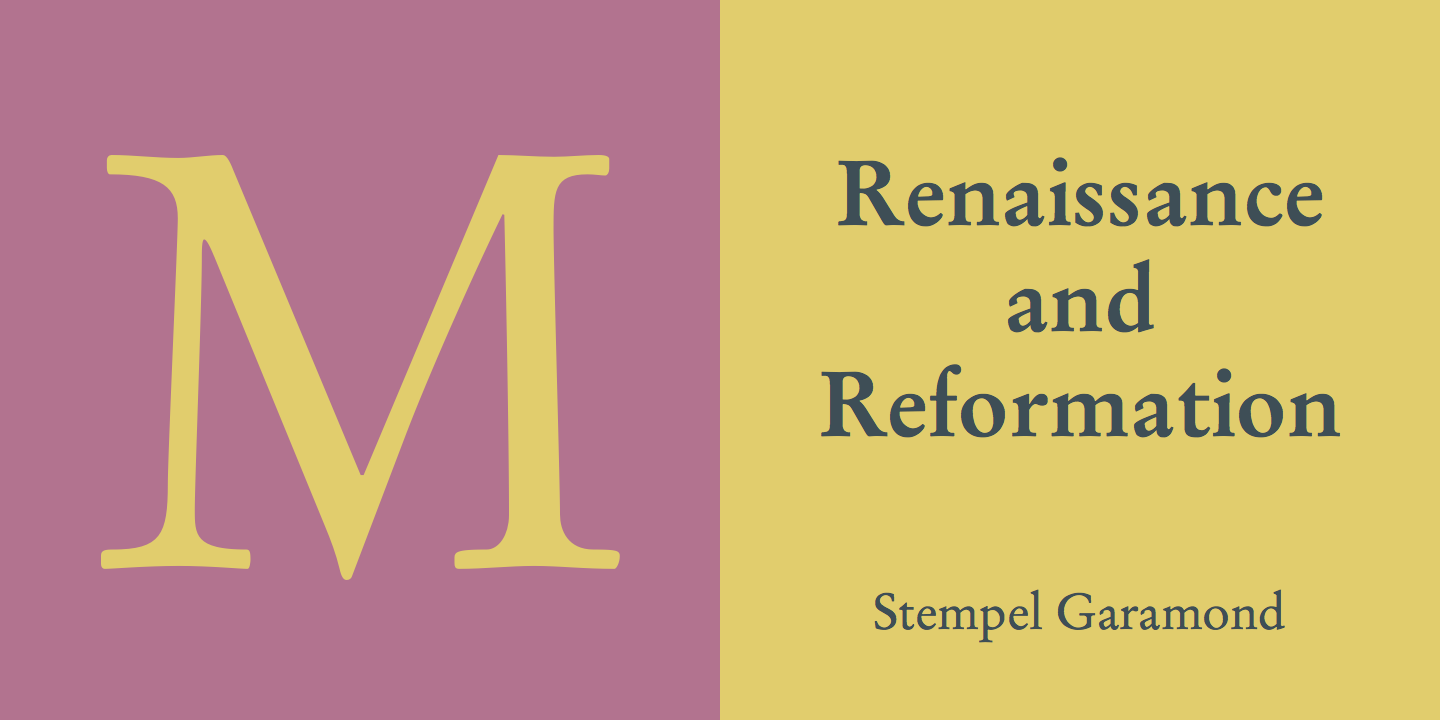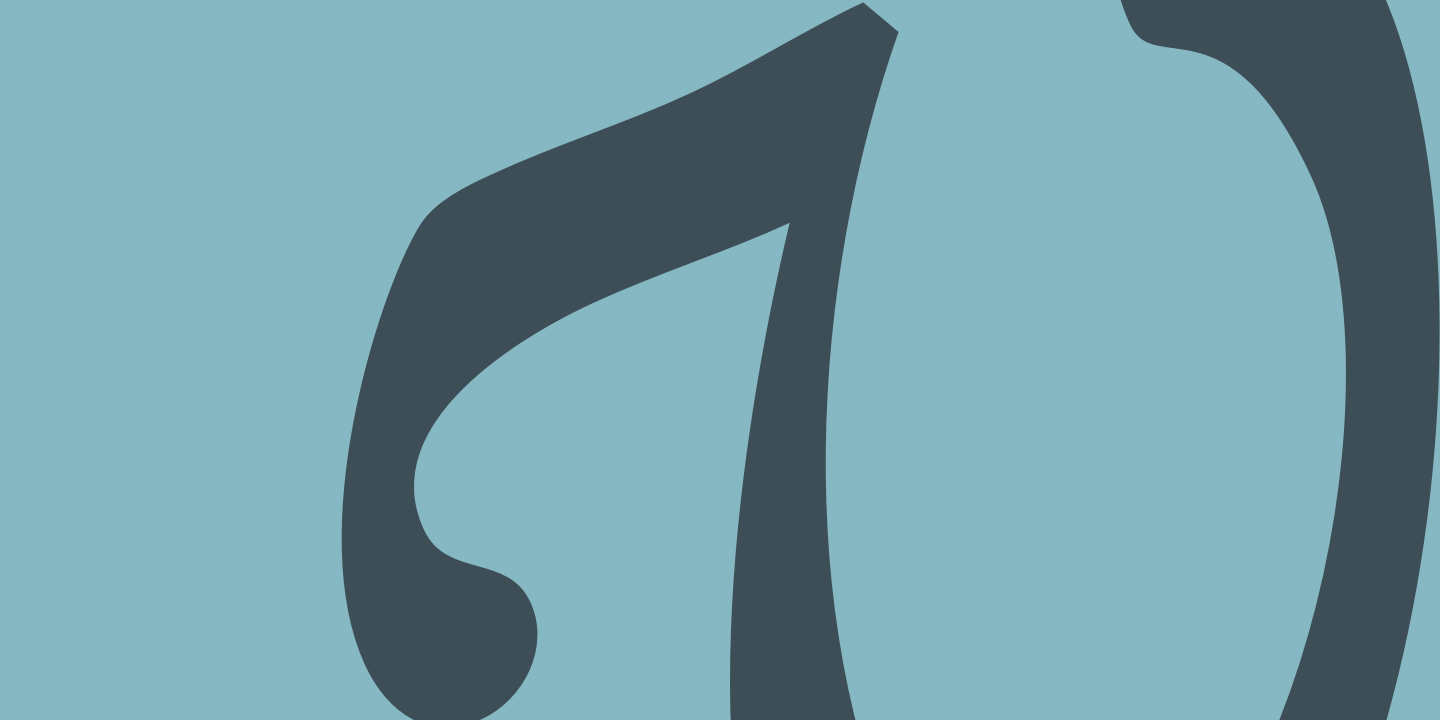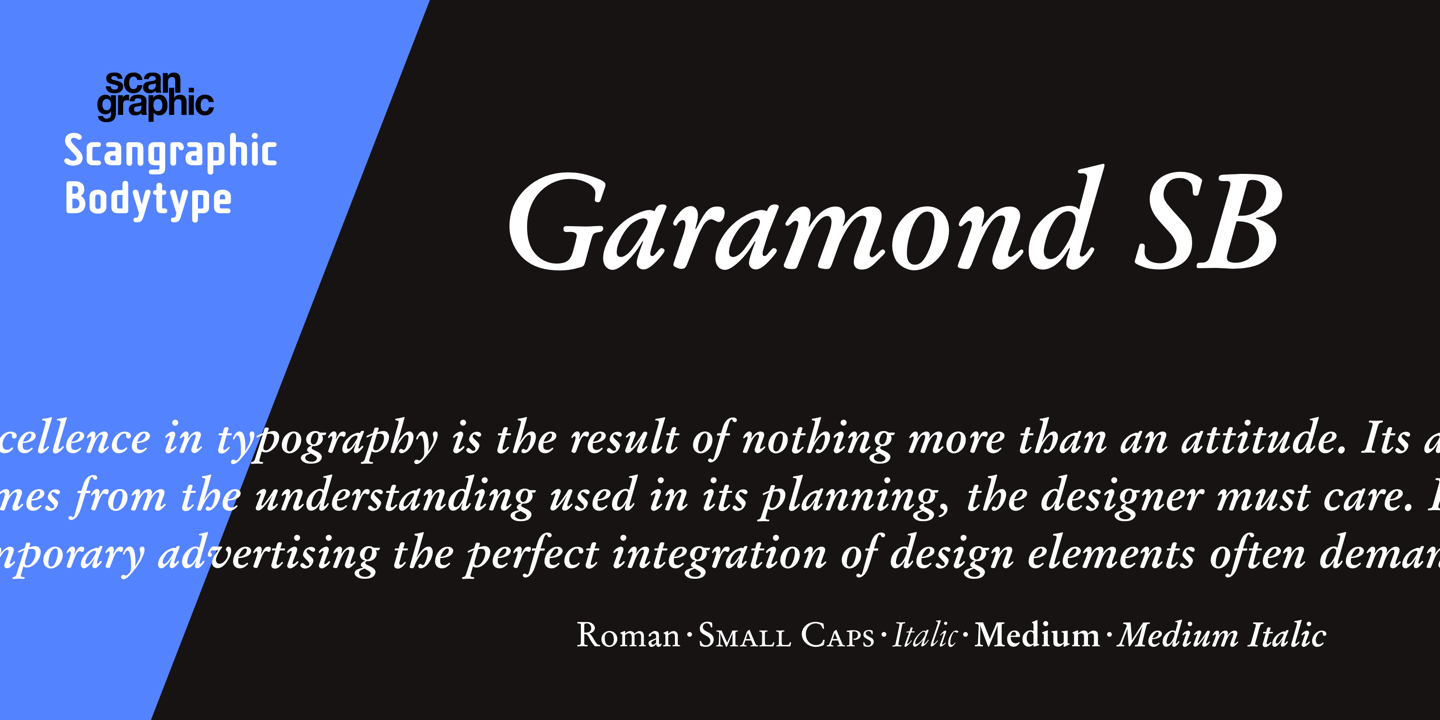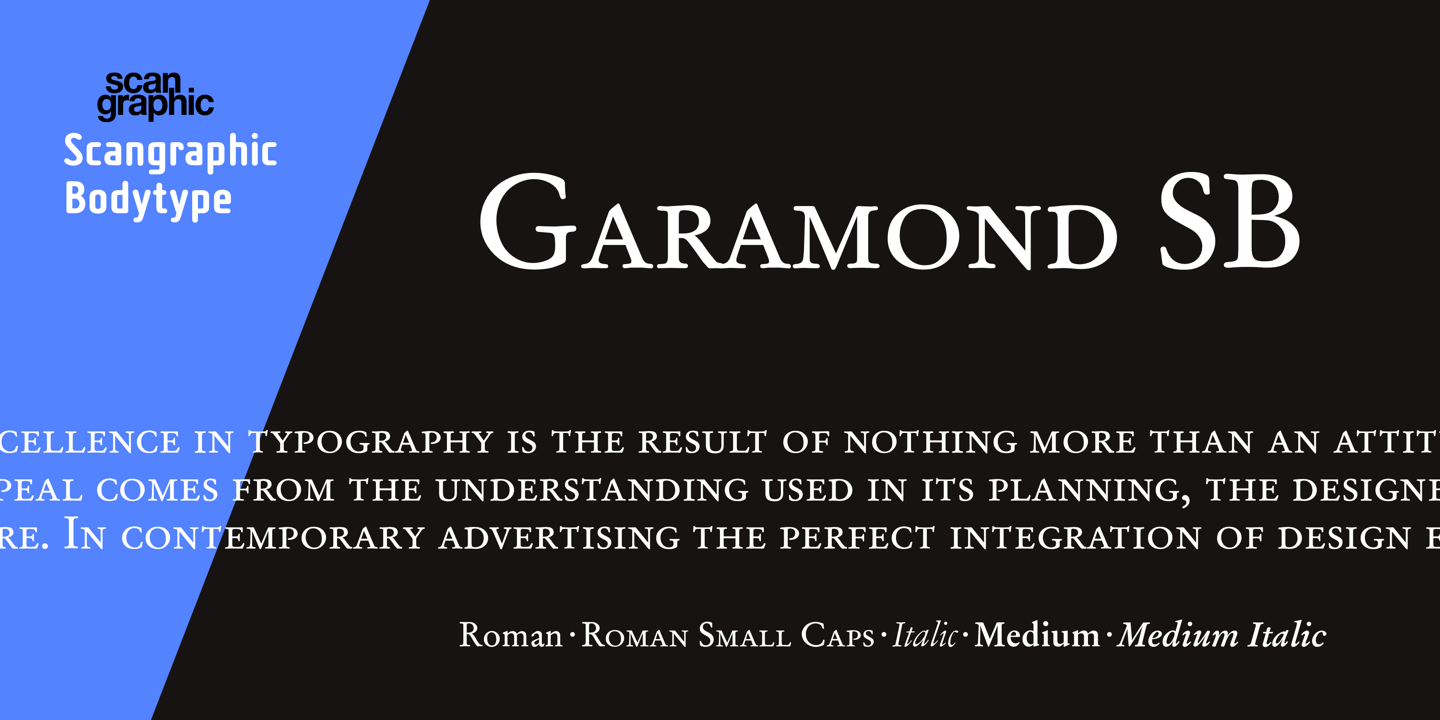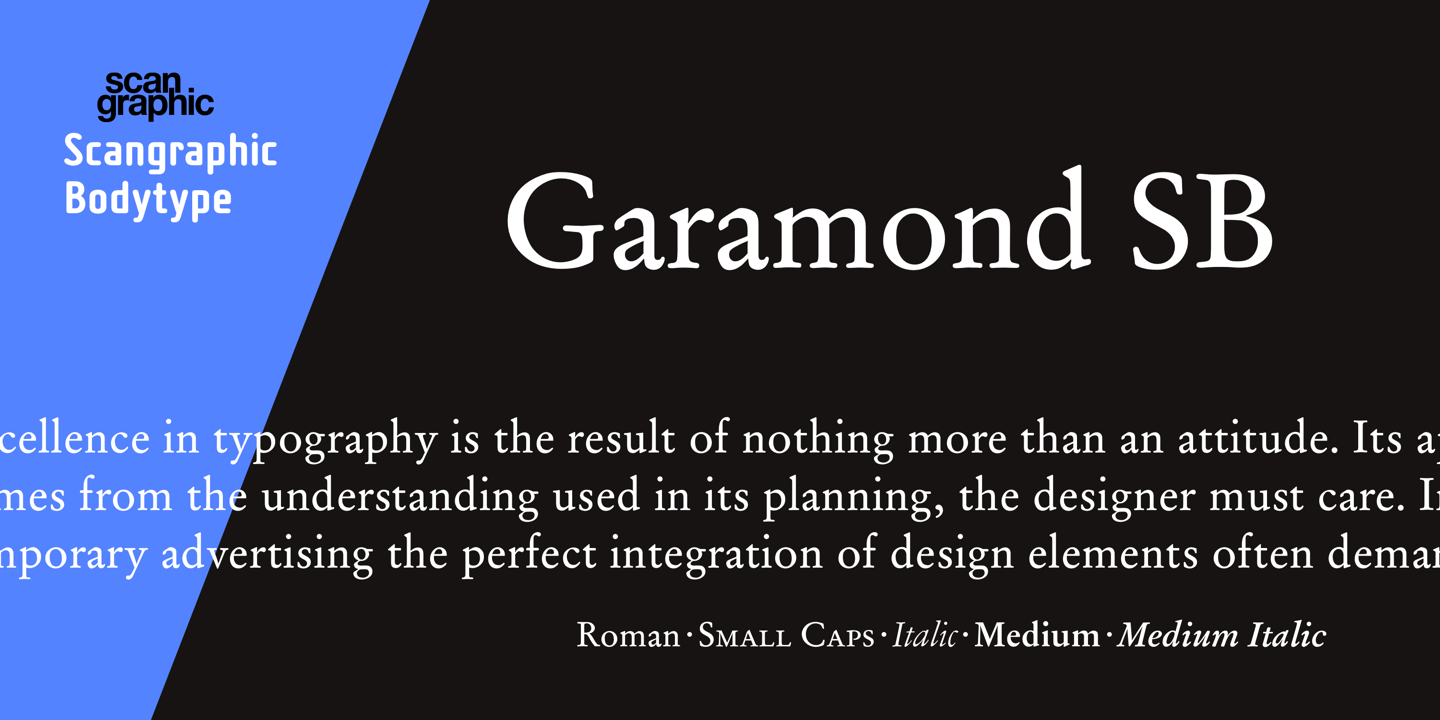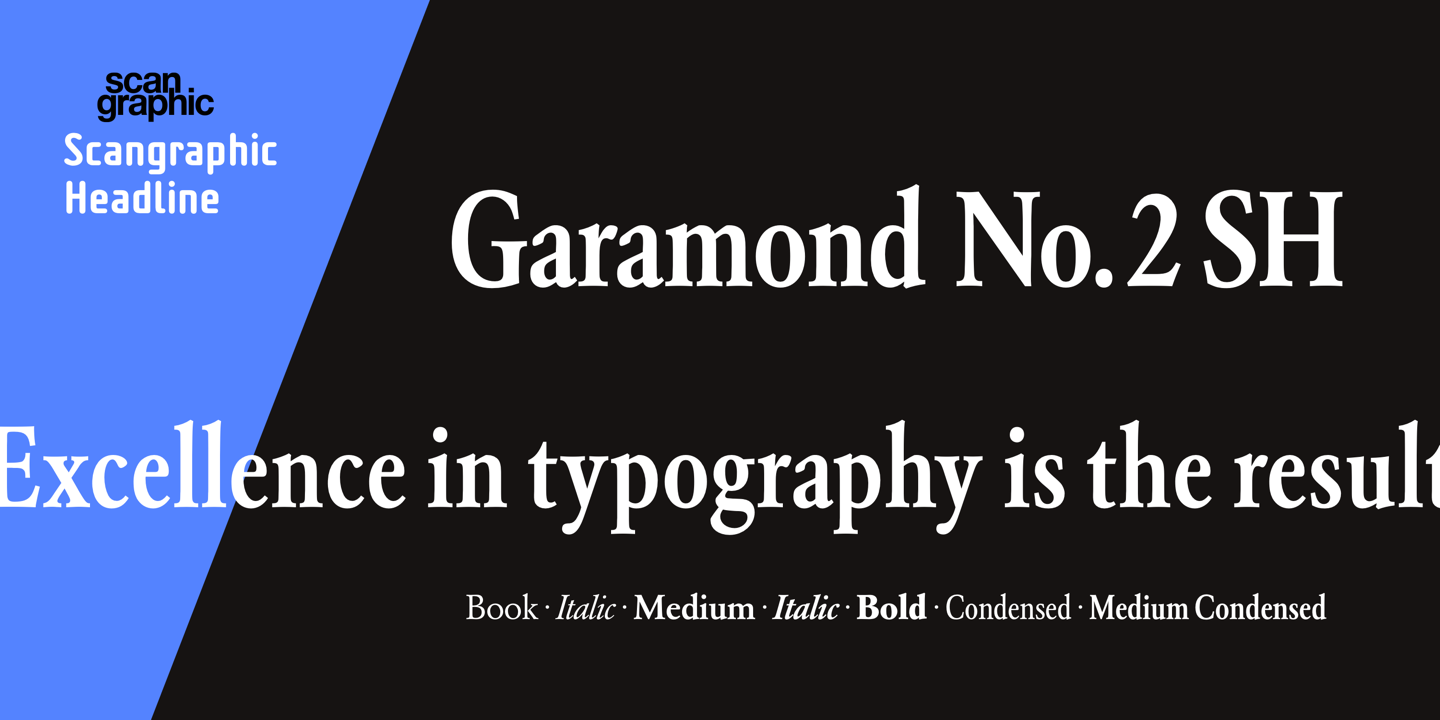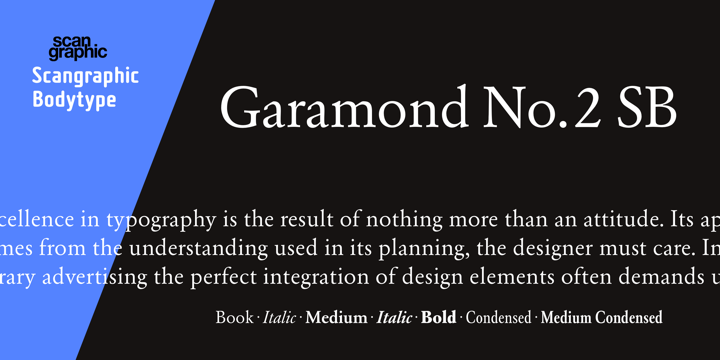
Claude Garamond – born c. 1480 in Paris, France, died 1561 in Paris, France – type founder, publisher, punch cutter, type designer.
1510: trains as a punch cutter with Simon de Colines in Paris. 1520: trains with Geoffroy Tory. 1530: Garamond’s first type is used in an edition of the book “Paraphrasis in Elegantiarum Libros Laurentii Vallae” by Erasmus. It is based on Aldus Manutius’ type De Aetna, cut in 1455. 1540: King Francis I commissions Garamond to cut a Greek type. Garamond’s ensuing Grec du Roi is used by Robert Estienne in three sizes exclusively for the printing of Greek books. From 1545 onwards: Garamond also works as a publisher, first with Pierre Gaultier and later with Jean Barbe. The first book he published is “Pia et Religiosa Meditatio” by David Chambellan. The books are set using typefaces designed by Garamond. After Garamond’s death, Christoph Plantin from Antwerp, the Le Bé type foundry and the Frankfurt foundry Egenolff-Bermer acquire a large proportion of Garamond’s original punches and matrices. The typefaces Garamond produced between 1530 and 1545 are considered the typographical highlight of the 16th century. His fonts have been widely copied and are still produced and in use today.
Publications include: "Essai d’un nouveau caractère de fonte pour l’impression de la musique", Paris 1756; “Manuel typographique” (2 vols.), Paris 1764–66.